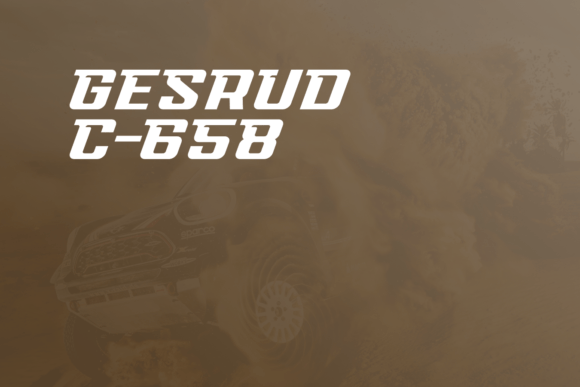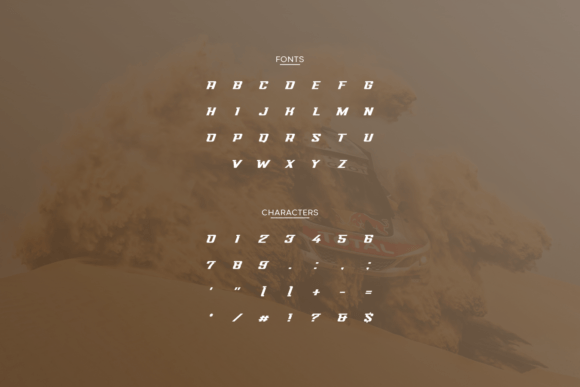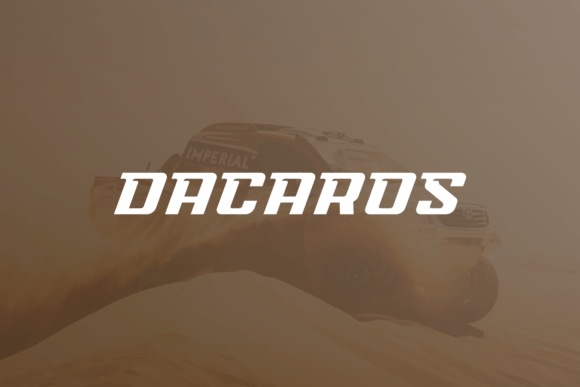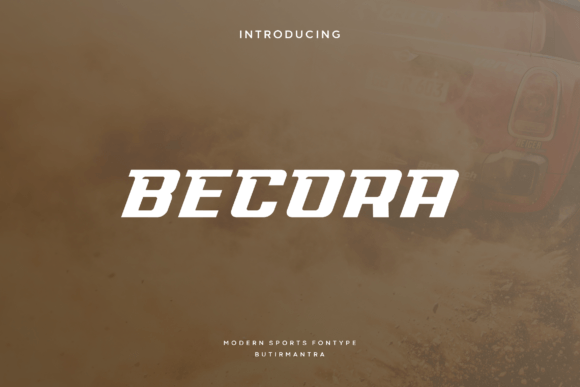
Becora Font: Elevate Your Designs with a Modern Sans-Serif Powerhouse
In the world of typography, fonts play a crucial role in conveying messages, setting tones, and creating visual identities. For designers and crafters, finding the perfect font can be a daunting task, but today, we’re excited to introduce you to Becora Font, a game-changing, modern sans-serif font that’s about to become your new go-to asset.
What is Becora Font?
Becora is a thick-lettered, modern sans-serif font designed to make a statement. Its robust and sturdy letterforms exude confidence and strength, making it perfect for a wide range of applications, from branding and advertising to packaging and digital media.
Key Features of Becora Font
- Modern Sans-Serif Design: Becora boasts a sleek, contemporary design that will instantly elevate your creations.
- Thick-Lettered: The font’s bold letterforms ensure excellent readability, even at smaller sizes.
- Versatile: Becora’s neutral tone and clean lines make it suitable for various topics and industries.
Why Choose Becora Font?
No matter the topic or project, Becora Font has the potential to elevate any creation. Here are just a few reasons why you should consider adding Becora to your font library:
- Instant Impact: The font’s bold, thick-lettered design demands attention and makes a lasting impression.
- Excellent Readability: Becora’s clear and clean lines ensure that your message is conveyed clearly, even at smaller sizes.
- Flexibility: Use Becora for headlines, titles, or body text – its versatility knows no bounds.
- Time-Saving: With Becora, you can achieve professional-looking results without spending hours searching for the perfect font.
Use Cases for Becora Font
Becora’s incredible asset is its adaptability. Here are some use cases to get you started:
- Branding and Logo Design: Create a bold, memorable logo that stands out from the competition.
- Advertising and Marketing: Use Becora for headlines, taglines, and promotional materials to grab attention.
- Packaging Design: Add a professional touch to your product packaging with Becora’s clean, modern design.
- Digital Media: Enhance your website, social media, or blog with Becora’s excellent readability and versatility.
Tips for Using Becora Font Effectively
To get the most out of Becora, follow these expert tips:
- Pair with Other Fonts: Combine Becora with complementary fonts to create visual interest and hierarchy.
- Experiment with Colors: Try Becora with different colors to create contrast and add emphasis.
- Play with Sizes: Use Becora in various sizes to create visual flow and guide the reader’s attention.
In conclusion, Becora Font is an incredible asset for designers and crafters looking to elevate their creations. Its modern sans-serif design, thick-lettered style, and versatility make it perfect for a wide range of applications. With Becora, you can create professional-looking results, make a lasting impression, and take your designs to the next level.